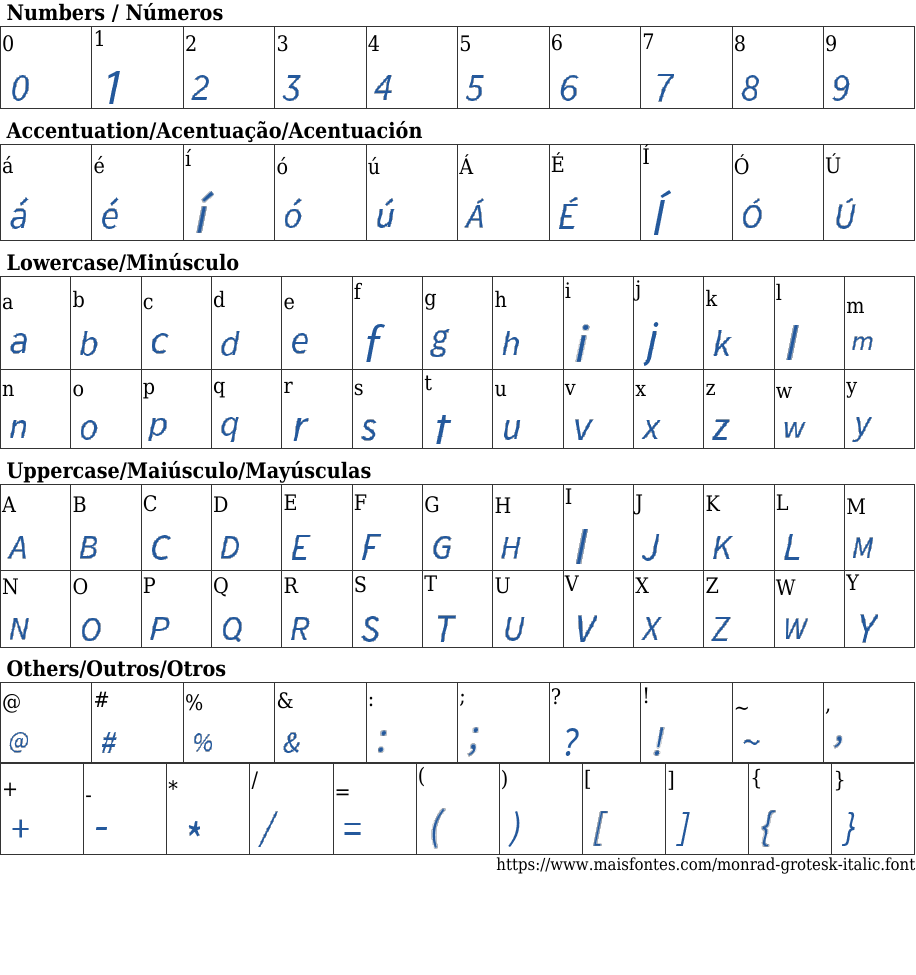
Monrad Grotesk Font Family
Monrad Grotesk Font Family - Monrad is a font family characterized as grotesque sans serif. Monrad grotesk font family series mainly provide regular,italic,bold and other font styles. Monrad grotesk version 2.010;ps version 2.0;hotconv 1.0.78;makeotf.lib2.5.61930 font. Monrad grotesk font family series mainly provide regular,italic,bold and other font styles.
Monrad grotesk font family series mainly provide regular,italic,bold and other font styles. Monrad grotesk version 2.010;ps version 2.0;hotconv 1.0.78;makeotf.lib2.5.61930 font. Monrad is a font family characterized as grotesque sans serif. Monrad grotesk font family series mainly provide regular,italic,bold and other font styles.
Monrad grotesk font family series mainly provide regular,italic,bold and other font styles. Monrad is a font family characterized as grotesque sans serif. Monrad grotesk version 2.010;ps version 2.0;hotconv 1.0.78;makeotf.lib2.5.61930 font. Monrad grotesk font family series mainly provide regular,italic,bold and other font styles.
Monrad is a font family characterized as grotesque sans serif. Monrad grotesk version 2.010;ps version 2.0;hotconv 1.0.78;makeotf.lib2.5.61930 font. Monrad grotesk font family series mainly provide regular,italic,bold and other font styles. Monrad grotesk font family series mainly provide regular,italic,bold and other font styles.
Monrad grotesk font family series mainly provide regular,italic,bold and other font styles. Monrad grotesk version 2.010;ps version 2.0;hotconv 1.0.78;makeotf.lib2.5.61930 font. Monrad grotesk font family series mainly provide regular,italic,bold and other font styles. Monrad is a font family characterized as grotesque sans serif.
Monrad grotesk font family series mainly provide regular,italic,bold and other font styles. Monrad is a font family characterized as grotesque sans serif. Monrad grotesk font family series mainly provide regular,italic,bold and other font styles. Monrad grotesk version 2.010;ps version 2.0;hotconv 1.0.78;makeotf.lib2.5.61930 font.
Monrad Grotesk
Monrad grotesk font family series mainly provide regular,italic,bold and other font styles. Monrad is a font family characterized as grotesque sans serif. Monrad grotesk version 2.010;ps version 2.0;hotconv 1.0.78;makeotf.lib2.5.61930 font. Monrad grotesk font family series mainly provide regular,italic,bold and other font styles.
Monrad is a font family characterized as grotesque sans serif. Monrad grotesk version 2.010;ps version 2.0;hotconv 1.0.78;makeotf.lib2.5.61930 font. Monrad grotesk font family series mainly provide regular,italic,bold and other font styles. Monrad grotesk font family series mainly provide regular,italic,bold and other font styles.
Monrad grotesk font family series mainly provide regular,italic,bold and other font styles. Monrad grotesk version 2.010;ps version 2.0;hotconv 1.0.78;makeotf.lib2.5.61930 font. Monrad grotesk font family series mainly provide regular,italic,bold and other font styles. Monrad is a font family characterized as grotesque sans serif.
Monrad is a font family characterized as grotesque sans serif. Monrad grotesk font family series mainly provide regular,italic,bold and other font styles. Monrad grotesk font family series mainly provide regular,italic,bold and other font styles. Monrad grotesk version 2.010;ps version 2.0;hotconv 1.0.78;makeotf.lib2.5.61930 font.
Monrad grotesk font family series mainly provide regular,italic,bold and other font styles. Monrad is a font family characterized as grotesque sans serif. Monrad grotesk font family series mainly provide regular,italic,bold and other font styles. Monrad grotesk version 2.010;ps version 2.0;hotconv 1.0.78;makeotf.lib2.5.61930 font.
Monrad grotesk font family series mainly provide regular,italic,bold and other font styles. Monrad grotesk font family series mainly provide regular,italic,bold and other font styles. Monrad is a font family characterized as grotesque sans serif. Monrad grotesk version 2.010;ps version 2.0;hotconv 1.0.78;makeotf.lib2.5.61930 font.
Monrad Grotesk
Monrad is a font family characterized as grotesque sans serif. Monrad grotesk font family series mainly provide regular,italic,bold and other font styles. Monrad grotesk version 2.010;ps version 2.0;hotconv 1.0.78;makeotf.lib2.5.61930 font. Monrad grotesk font family series mainly provide regular,italic,bold and other font styles.
Monrad Grotesk Font Family Series Mainly Provide Regular,Italic,Bold And Other Font Styles.
Monrad grotesk version 2.010;ps version 2.0;hotconv 1.0.78;makeotf.lib2.5.61930 font. Monrad is a font family characterized as grotesque sans serif. Monrad grotesk font family series mainly provide regular,italic,bold and other font styles.